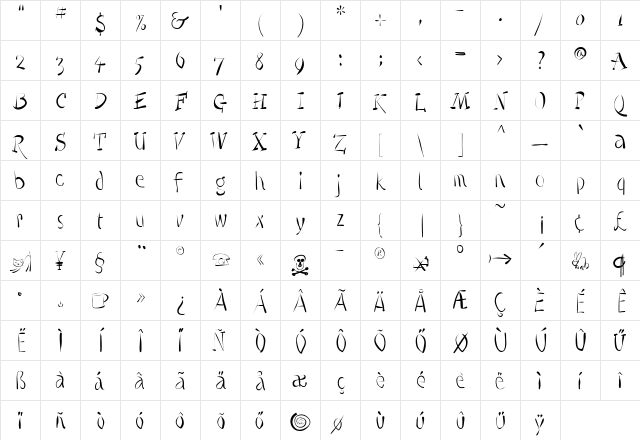
Quill Light
Design Context for Quill Typeface
Quill is a composed and adaptable typeface that performs quietly and consistently across a wide range of design contexts. Its slender proportions lend an understated elegance to any composition.